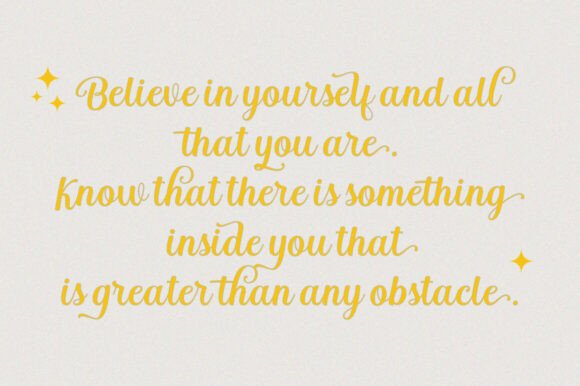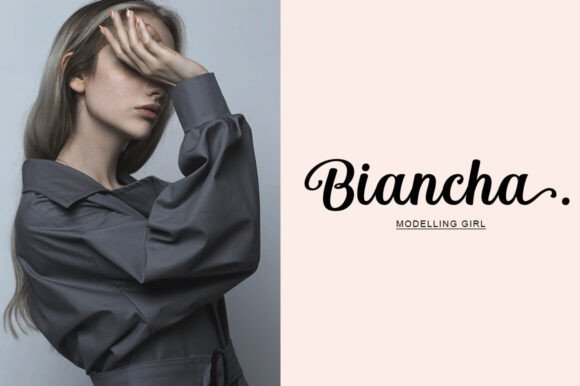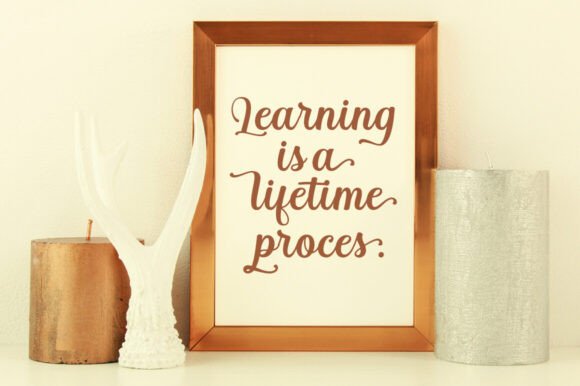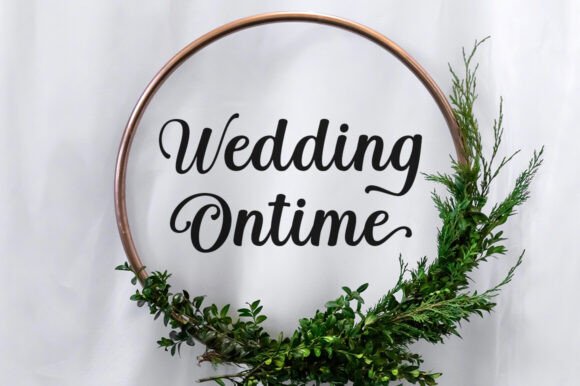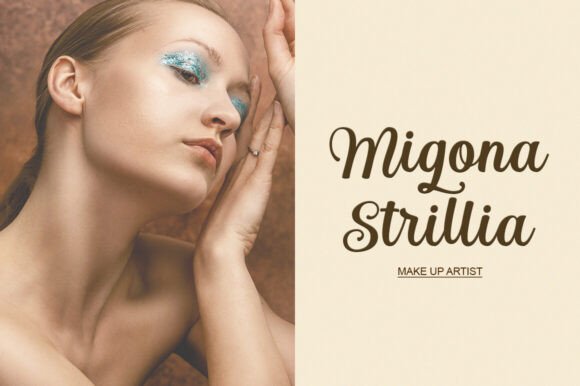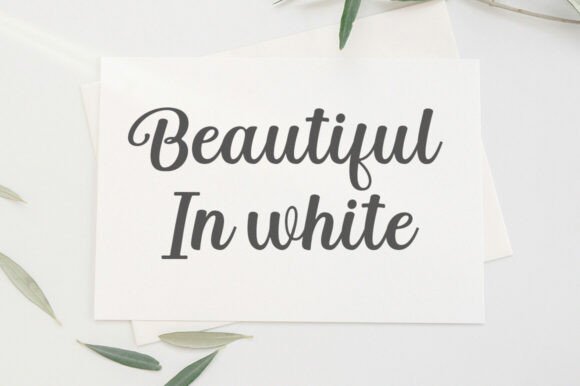
The Magic of Garden Alphabet Font: A Designer’s Delight
I’ll never forget the time I was working on a branding project for a luxury wedding planner, and I was struggling to find the perfect font to capture the essence of elegance and romance. The client wanted something that would make their invitations and marketing materials stand out, but I was stuck in a font rut. That’s when I stumbled upon Garden Alphabet Font, and it was love at first sight! 💕
This sweet and romantic calligraphic typeface has characters dancing along the baseline, exuding luxury and sophistication. In this article, I’ll share my experience with Garden Alphabet Font, its features, and how to make the most of it in your design projects.
- 💫 Romantic and elegant feel, perfect for luxury brands and wedding designs
- 🎨 Highly versatile, suitable for quotes, titles, blogs, logos, branding, invitations, and more
While Garden Alphabet Font is a stunning typeface, there are a few things to keep in mind:
- 🤔 Some users may find the font’s script style a bit challenging to pair with other fonts
- ⚠️ The font’s intricate details may not display well at very small sizes
The Story Behind Garden Alphabet Font
While the true story behind Garden Alphabet Font remains a mystery, it’s easy to imagine that the designer was inspired by the beauty of nature and the romance of handwritten scripts. Perhaps they spent countless hours pouring over vintage garden books, lettering, and typography to create this stunning typeface.
Q: How do I pair Garden Alphabet Font with other fonts?
A: Pairing Garden Alphabet Font with other fonts requires some experimentation. Try combining it with clean sans-serif fonts or elegant serif fonts to create a beautiful contrast.